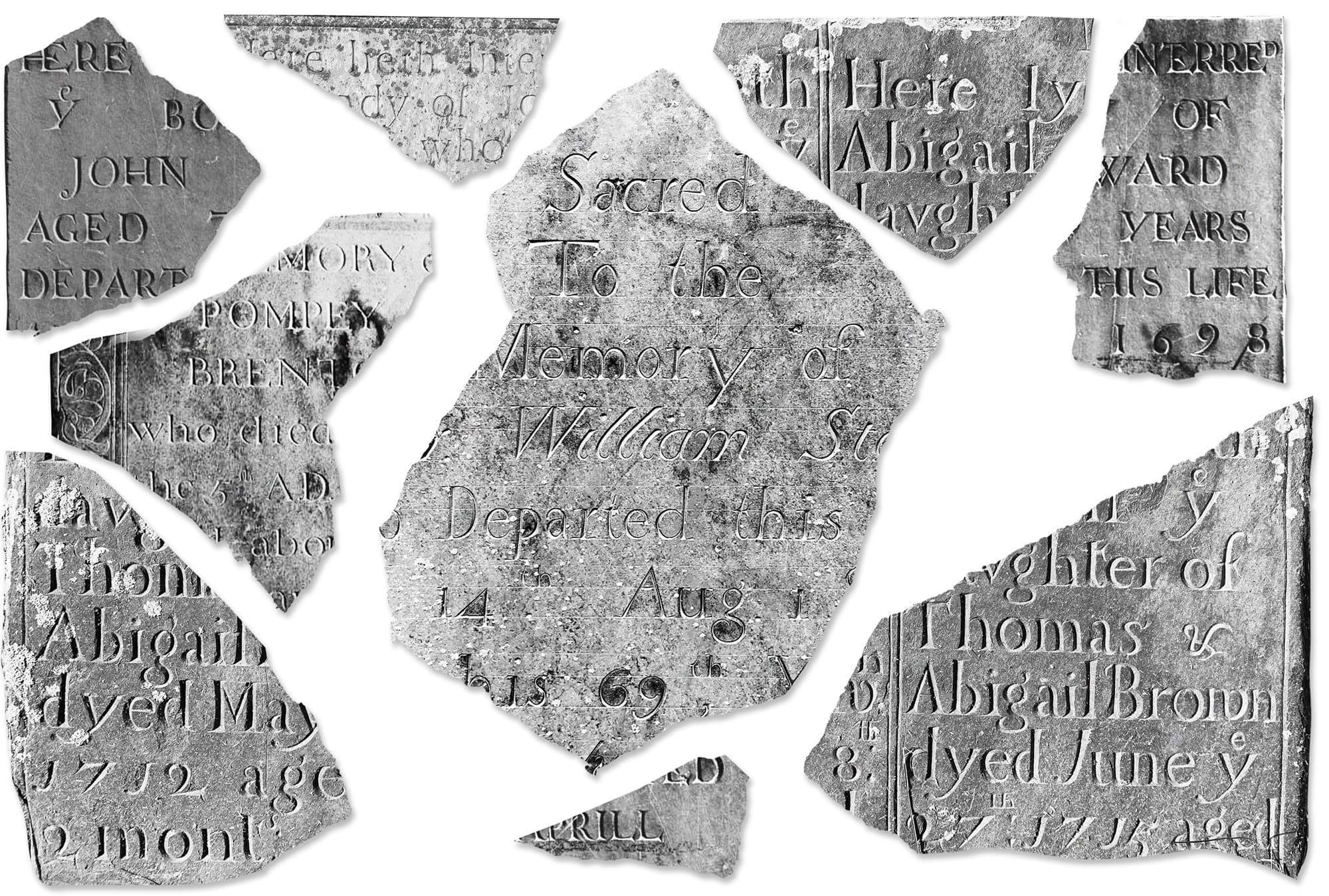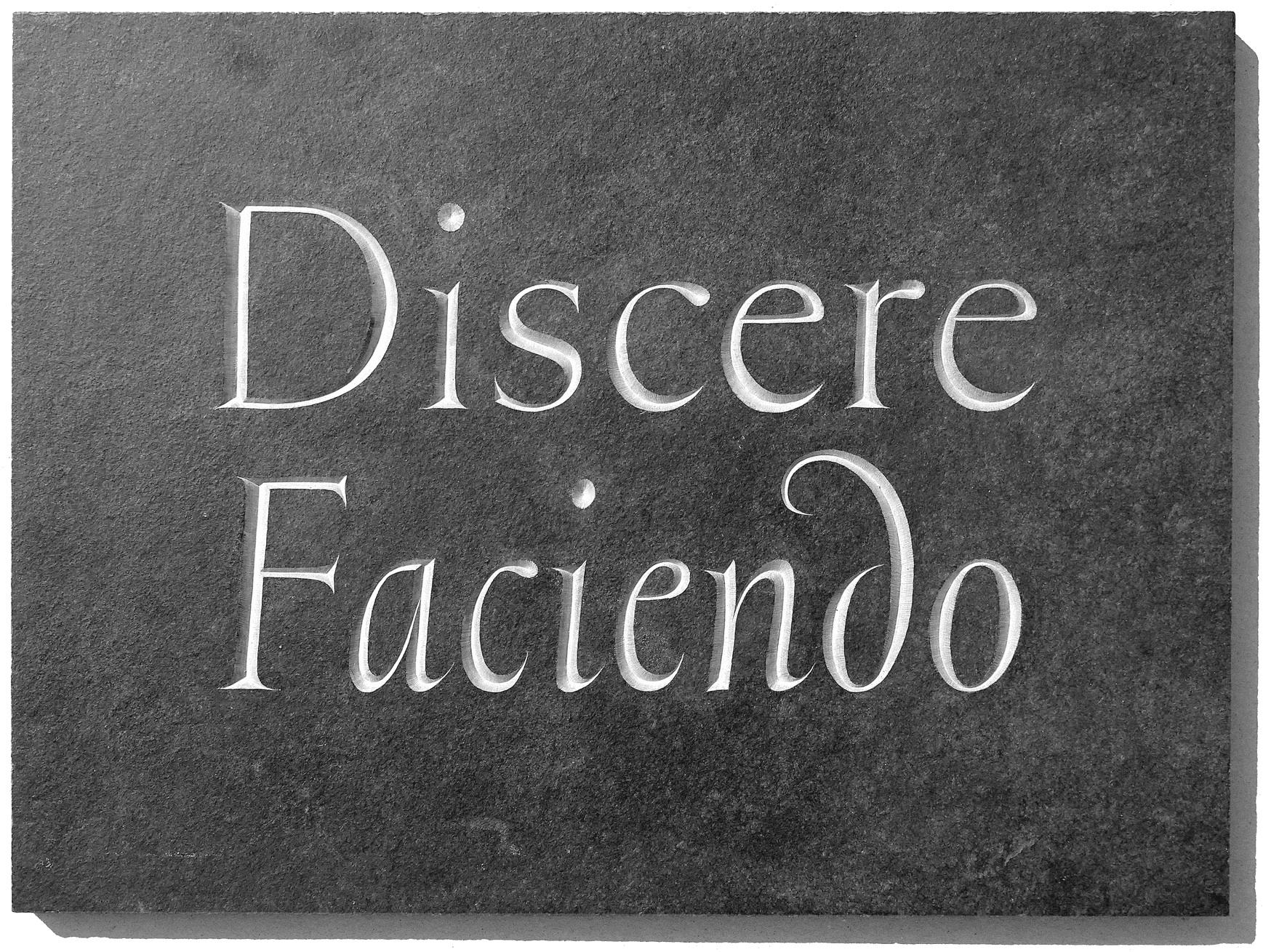
Greenstone
Greenstone interprets Oscar Ogg’s vernacular lettering style through the lens of American and British stone carving, such as the work of John Howard Benson and David Kindersley. The connection between these sources is reminiscent of the intercultural dialogue between the American and British type design industries in the 19th to 20th centuries, a period when many designers were drawing influence from their peers across the Atlantic. While perfectly serviceable as a model alphabet for carving in stone, Greenstone is a typographic expression of an ancient and sacred tradition of lettering, in which the plethora of exquisite vernacular styles have developed over the centuries thanks to the improvisational nature of use-specific composition.
Greenstone Carving
Greenstone translated into slate by My-Lan Thuong, 2022.
Greenstone Source
Greenstone source material Gathered by Connor Davenport.